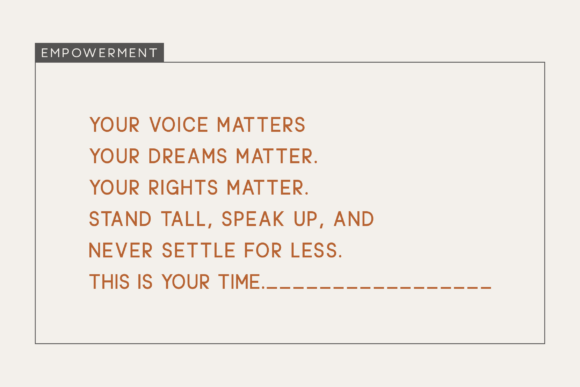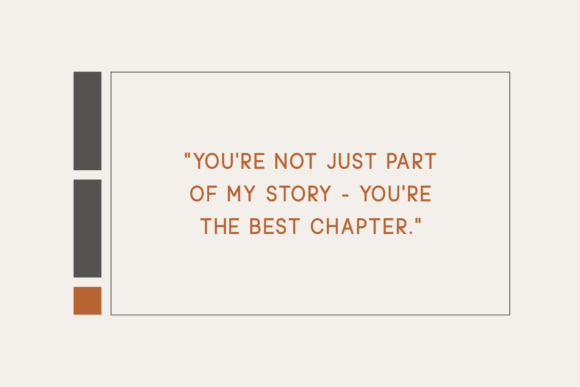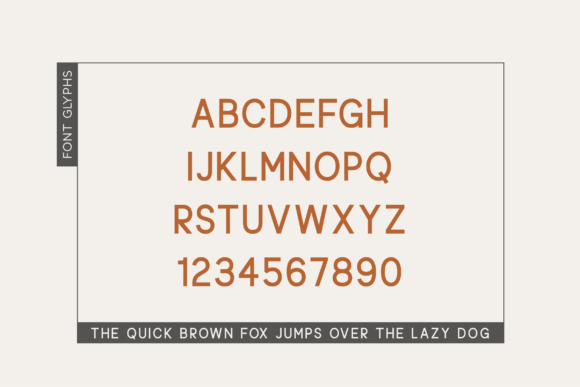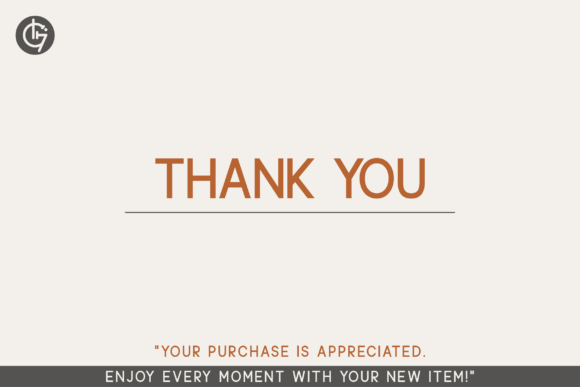
Introduction to Liemount Font Font
Fonts play a crucial role in design, and the Liemount Font font is a typeface that brings both character and versatility to any project. Whether you’re working on a branding project, a website, or a print design, the Liemount Font font offers a unique style that can elevate your work.
Liemount is a clean, modern sans-serif typeface that blends simplicity with precision.
Its consistent stroke weights, balanced kerning, and open letterforms create a smooth, highly readable flow across any medium The subtle geometric influence gives each character a refined yet contemporary feel, making Liemount versatile enough for everything from branding and editorial layouts to digital interfaces and packaging .
Key Features of Liemount Font Font
Why Choose Liemount Font Font?
The Liemount Font font is more than just a typeface – it’s a design tool that helps you communicate your message with style and clarity. Its unique character set and versatile design make it suitable for a wide range of applications, from elegant invitations to bold headlines.
With its carefully crafted letterforms and balanced proportions, the Liemount Font font ensures readability and visual appeal across all mediums.
What makes Liemount Font font special?
The Liemount Font font stands out with its unique design, exceptional readability, and versatility across various design applications.